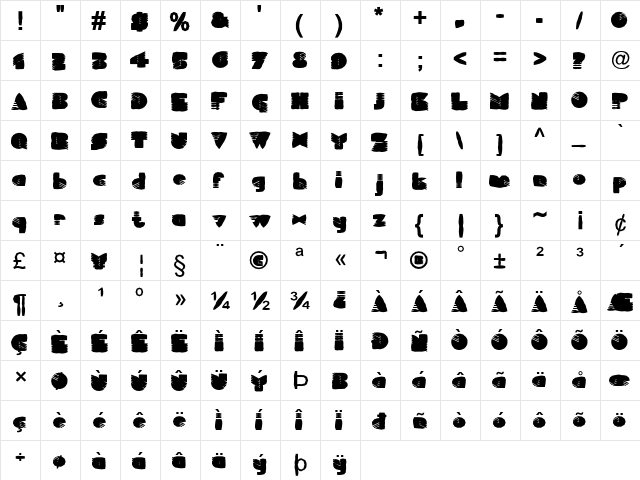
FZ UNIQUE 11 MANGLED Normal Font Preview
FZ UNIQUE 11 MANGLED Normal
FZ UNIQUE 11 MANGLED Normal Font Details
Design Context for FZ UNIQUE 11 MANGLED Typeface
FZ UNIQUE 11 MANGLED is a composed and adaptable typeface that performs quietly and consistently across a wide range of design contexts.